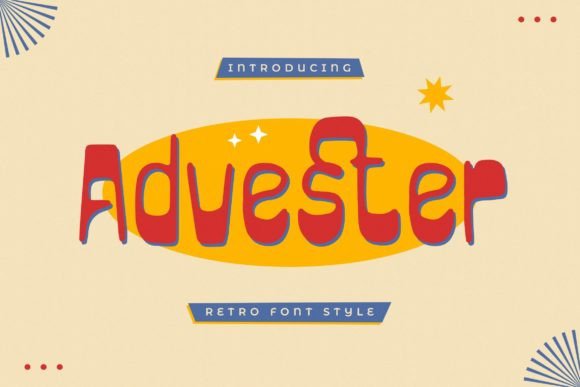
The Retro Revival: Unpacking the Advester Font
Ah, the elusive perfect font. You know, that one that makes your design project go from meh to mesmerizing. I’ve been there, done that, and got the t-shirt (which, coincidentally, was probably designed with a font that wasn’t quite right). But today, I’m excited to share with you a gem that might just be the retro revival your designs need: the Advester font.
A Love Letter to Advester
Advester is more than just a font; it’s a time machine for your designs. With its playful, nostalgic vibe, it instantly transports you back to the ’80s – think neon lights, big hair, and plenty of synthesizers. This display font is perfect for adding that special retro touch to any design idea you can think of, from posters and flyers to digital graphics and branding.
- ✨ Playful and Nostalgic: Advester captures the fun, carefree essence of the ’80s.
- ✅ Vintage Aesthetic: Its unique design elements will give your projects a distinct retro look.
The Honest Review
- 🌟 The instant ’80s vibe it provides, making it perfect for themed projects or adding a nostalgic touch.
- 💻 Versatile for various design projects, from digital to print.
While Advester is a fantastic font, there are a few things to keep in mind:
- ⚠️ Legibility at Small Sizes: Like many display fonts, Advester might lose legibility when used at very small sizes. It’s best used for headlines or larger text.
- 🤔 Pairing with Other Fonts: Finding the right font to pair with Advester can take some experimentation. You want to balance its bold, playful style without overpowering your design.
While the origins of Advester are shrouded in mystery, it’s easy to imagine a designer, fueled by a love for ’80s pop culture and a passion for typography, creating this font as a labor of love. Perhaps they grew up watching movies and TV shows from the era, mesmerized by the graphics and text overlays. Whatever the inspiration, Advester is a testament to the power of nostalgia in design.
Q: Is Advester suitable for body text?
A: While Advester is primarily designed as a display font, it’s best used for headlines and larger text due to its unique style and potential legibility issues at smaller sizes.